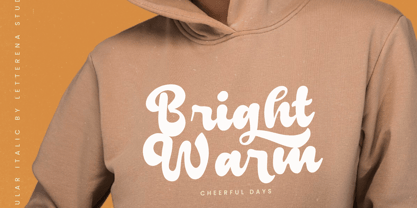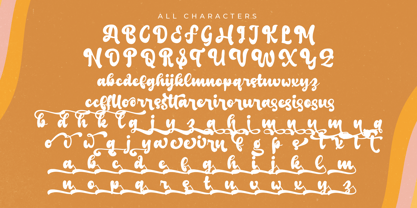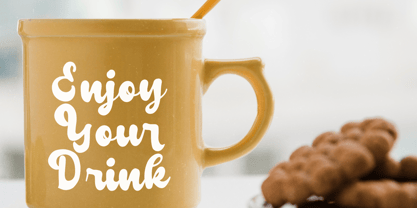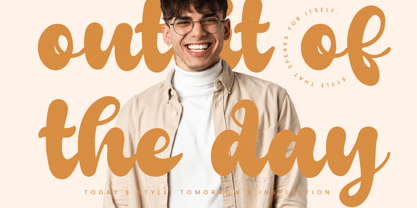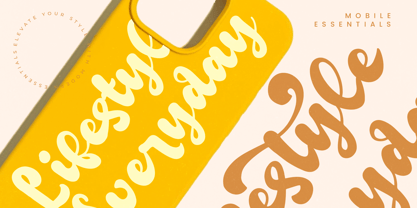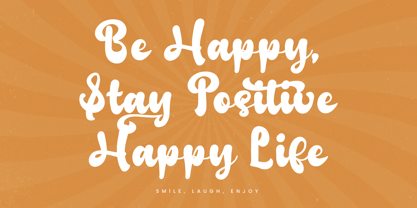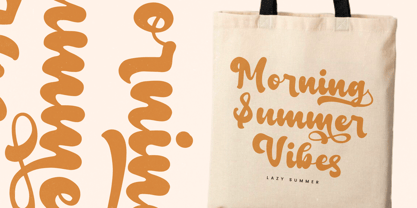
Mastery Angels
by Letterena Studios
The Mastery Angels Font Family was designed by Heru Utama Putra and published by Letterena Studios. Mastery Angels contains 2 styles and family package options.
Mastery Angels is a vintage-style font that looks bold and handwritten, bringing a nostalgic touch to your designs. Its retro charm adds a unique flair to any project, giving it a classic yet modern feel.